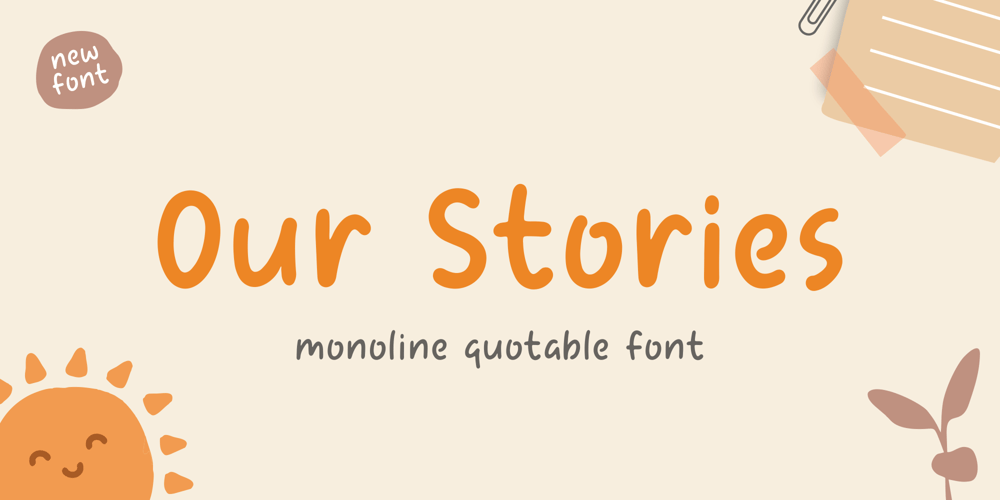
Our Stories Font Family was designed by Bagus Arya Kirana and published by Krntype Studio. Our Stories contains 1 styles and family package options. Our Stories is a cute bubbly monoline font. The anatomy of each letter is playful, making this font look cute bubbly and clean. Our Stories has a fun taste with a cute and bubbly impression. This font is perfect for making quotes, T-shirts, mugs, or just annotating photos, and many other things.